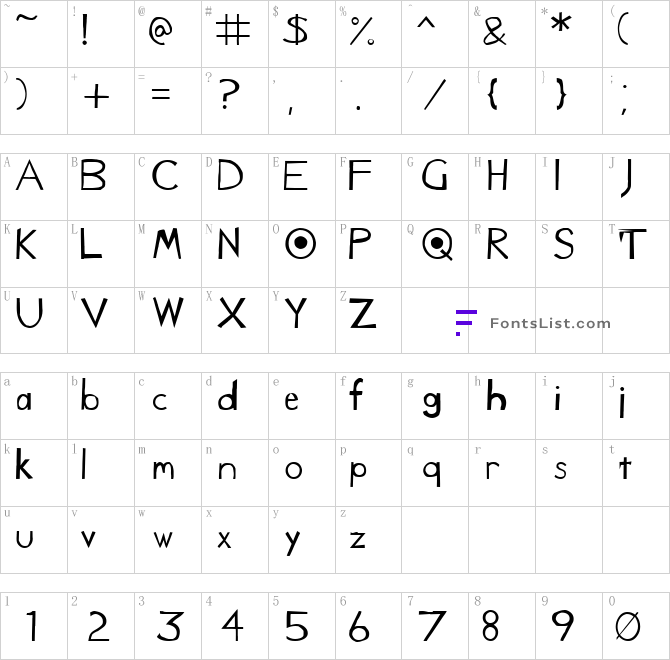
- Font Name:Caduceus
Caduceus.ttf is a very beautiful artistic font, Caduceus.ttf is widely used in the design and printing of various books and pictures,Caduceus.ttf has a strong visual impact,Caduceus.ttf is a commonly used font in newspapers, magazines and books, and is used in posters, e-commerce Poster design, store design, logo design, font design and other fields.Caduceus.